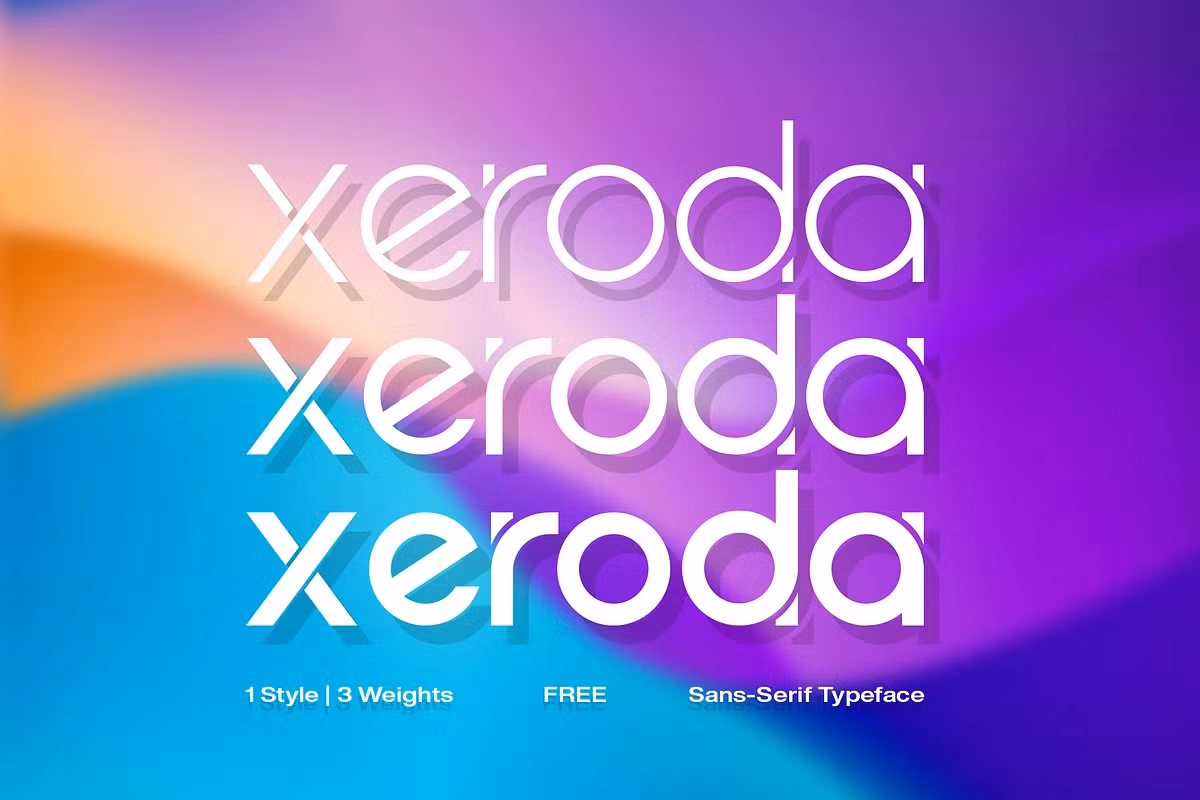
Xeroda - Sans Serif Typeface Free Download is a modern and sleek sans-serif font designed for clean, minimalist designs. With its geometric shapes and crisp lines, Xeroda is perfect for branding, websites, logos, editorial layouts, and any project that requires a professional and contemporary feel.
Its balanced proportions and high legibility make it versatile for both display text and body copy. Whether you're creating a tech brand, corporate materials, or digital content, Xeroda delivers a sophisticated, timeless style to your designs.